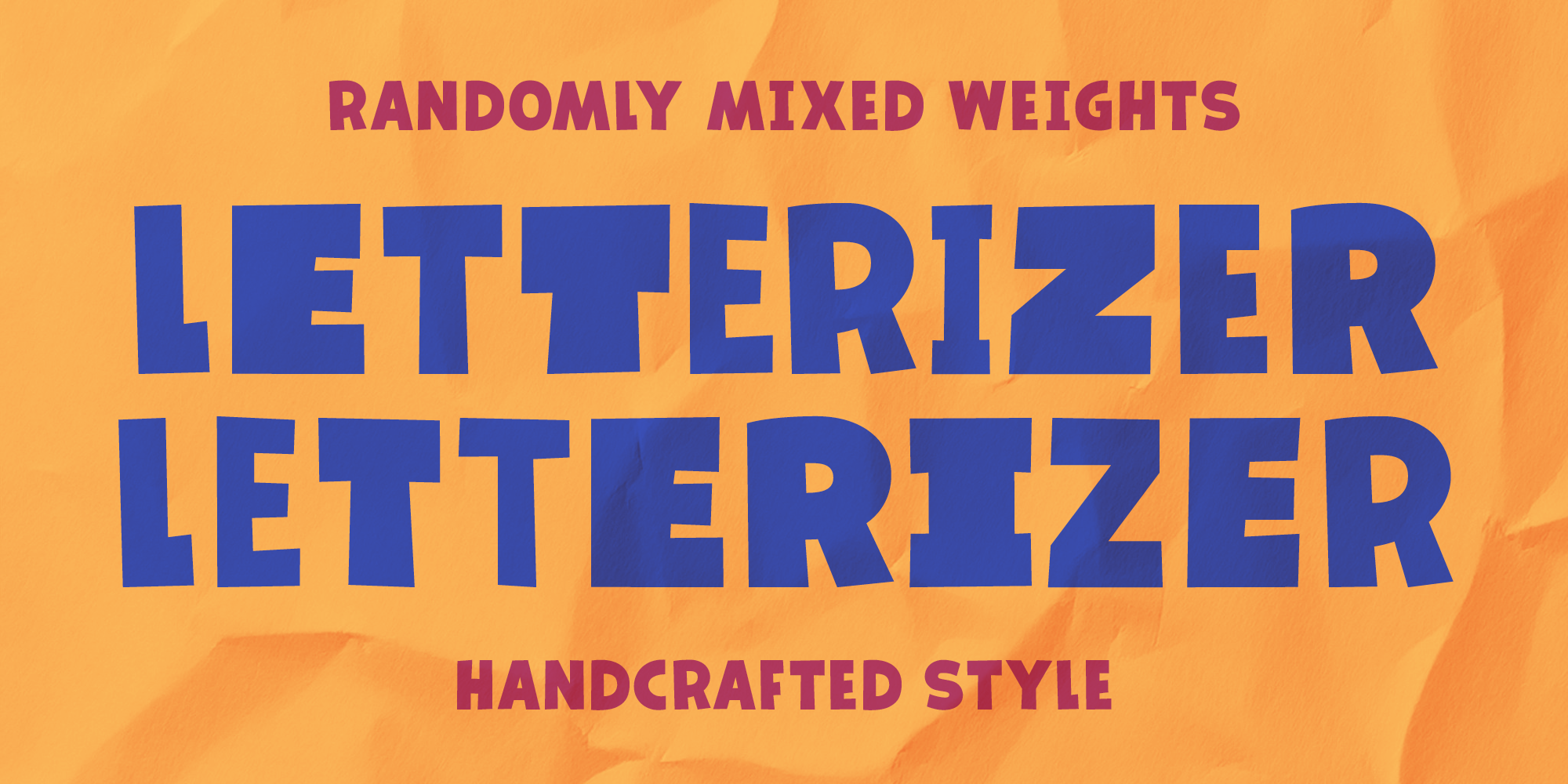
Letterizer Font is ideal for creative headlines, artistic poster designs, experimental typography projects, modern brand identities, innovative logo designs, digital art installations, contemporary magazine layouts, cutting-edge advertising campaigns, graphic design portfolios, and avant-garde visual communications. This distinctive display typeface brings bold creative expression and artistic innovation to experimental design applications.
What makes Letterizer Font so exciting is its groundbreaking approach to letter construction that transforms traditional typography into dynamic visual art through innovative character design and creative letterform manipulation. The font features uniquely crafted characters with experimental structures, unexpected angles, and artistic interpretations that challenge conventional typographic boundaries. Its distinctive design philosophy combines geometric precision with creative freedom, resulting in letterforms that function as both readable text and standalone graphic elements. The bold creative vision and unconventional character relationships make Letterizer Font perfect for projects that demand artistic distinction and memorable visual impact.
The Letterizer Font family includes multiple creative variations: Regular, Bold, Outline, and Experimental versions with artistic alternates. The comprehensive character set encompasses complete Latin alphabet support with creative alternates, stylized numerals, artistic punctuation marks, geometric symbols, and experimental ligatures. Professional features include contextual alternates that enhance creative compositions, artistic swash elements, decorative characters, and flexible spacing options that accommodate both traditional and experimental typographic layouts.
Whether you're creating cutting-edge brand identities, artistic publications, or experimental design projects, Letterizer Font Free Download provides the innovative typography that pushes creative boundaries and establishes unique visual identities. Its exceptional artistic character makes it perfect for projects requiring distinctive visual personality and creative differentiation, while its experimental nature ensures that designs stand out in today's saturated visual marketplace. The font's combination of artistic innovation and functional versatility makes it invaluable for designers, artists, and creative professionals seeking to explore new frontiers in typographic expression and visual communication.